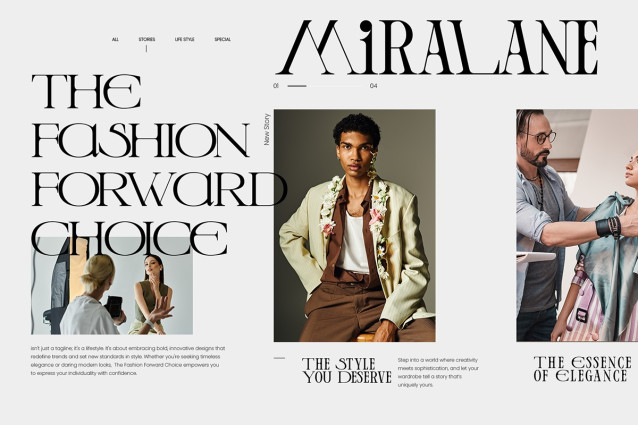
Steala Font
Steala Font, a modern display serif font crafted to exude elegance and luxury. Its high-contrast strokes between thick and thin lines create a unique, premium aesthetic that stands out in any design. The seamless combination of uppercase and lowercase letters adds versatility, bringing visual harmony to editorial layouts, branding, and other creative projects requiring a touch of sophistication.
Steala’s stylish curves and clean serif details make it ideal for logos, high-end branding, wedding invitations, editorial designs, and luxury product packaging. Featuring a stylish uppercase and lowercase combination, OpenType and TrueType support, as well as multilingual compatibility, Steala delivers a timeless, refined look to elevate your design projects with elegance and uniqueness.